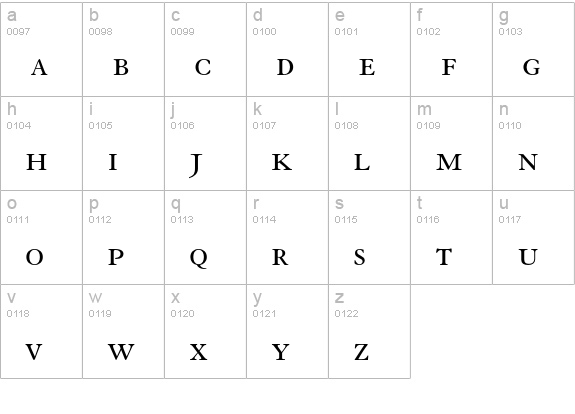
Granjon Small Caps & Old Style Figures font is a sophisticated and elegant typeface that exudes timeless charm and refinement. With its delicate serifs and graceful curves, this font is perfect for adding a touch of class to any project. The small caps and old style figures add a unique and classic touch to your text, making it stand out from the rest. Best of all, Granjon Small Caps & Old Style Figures font is available for free download at FontsMarket.com. Whether you're working on a print design, web project, or any other creative endeavor, this font is sure to elevate your work to the next level. Download this exquisite font today and enjoy the beauty and versatility it brings to your designs.